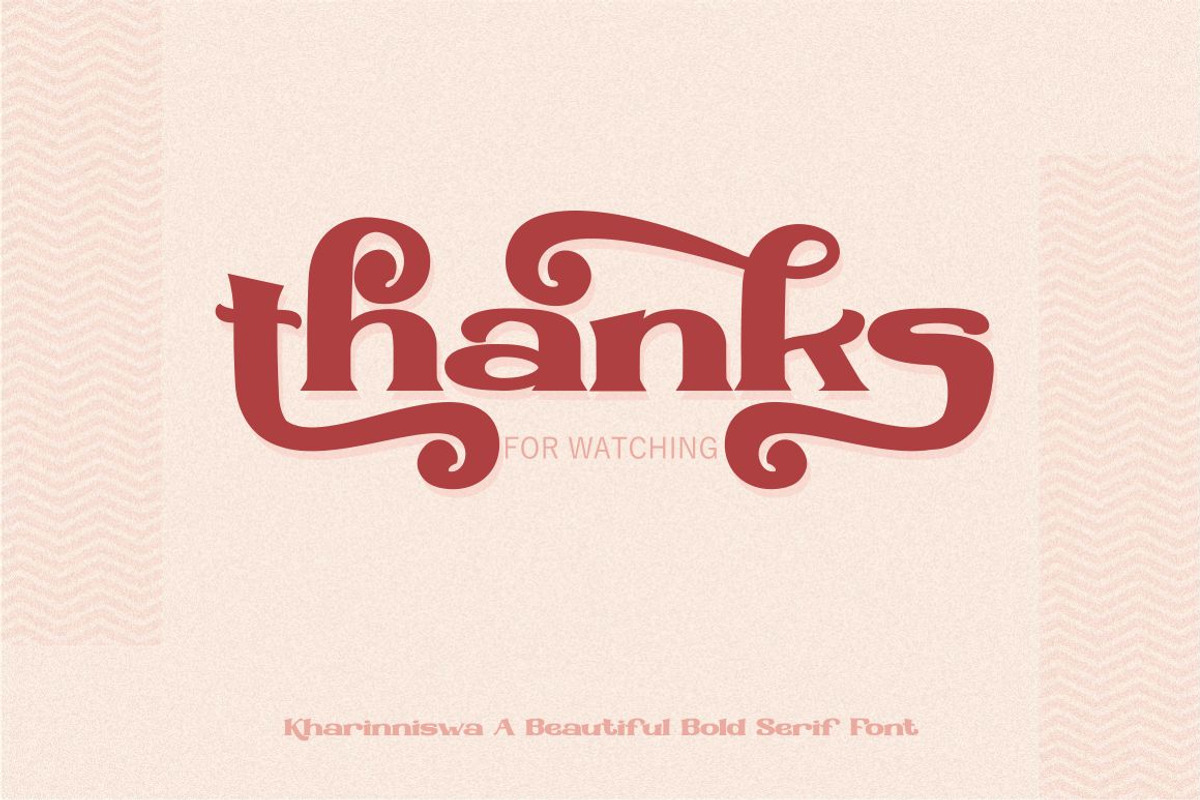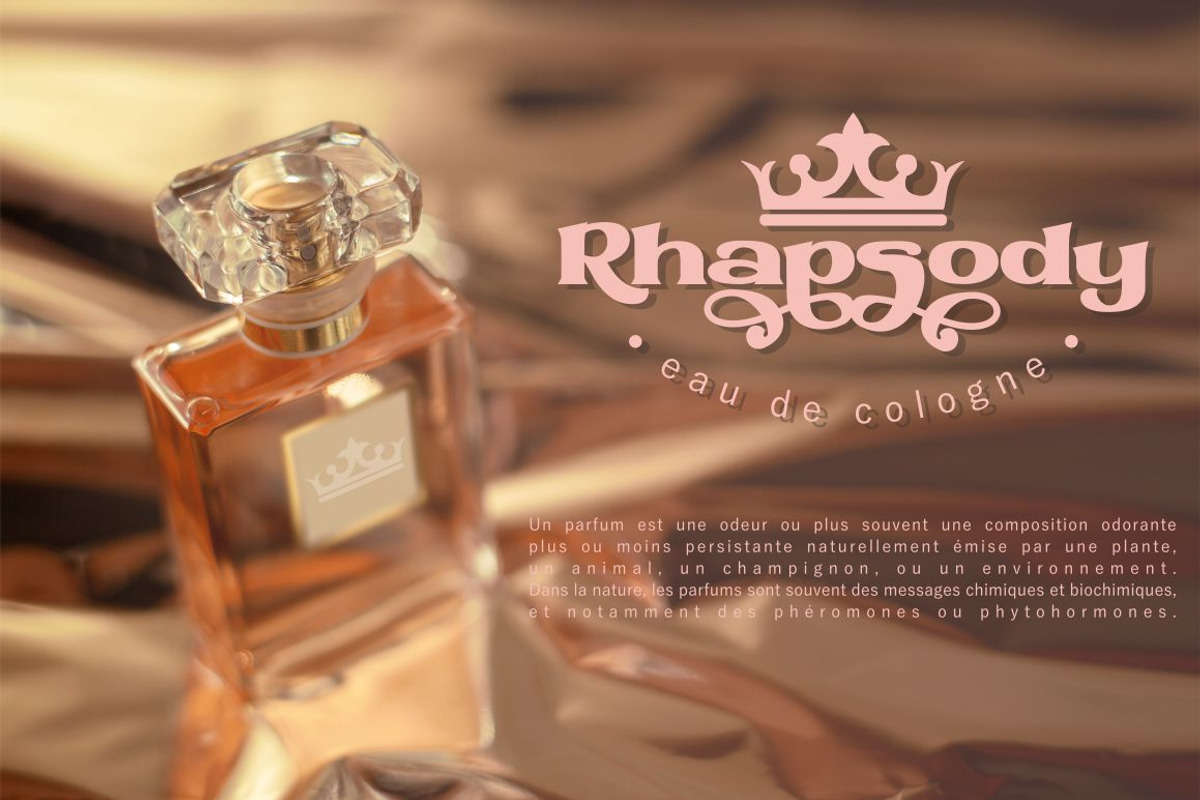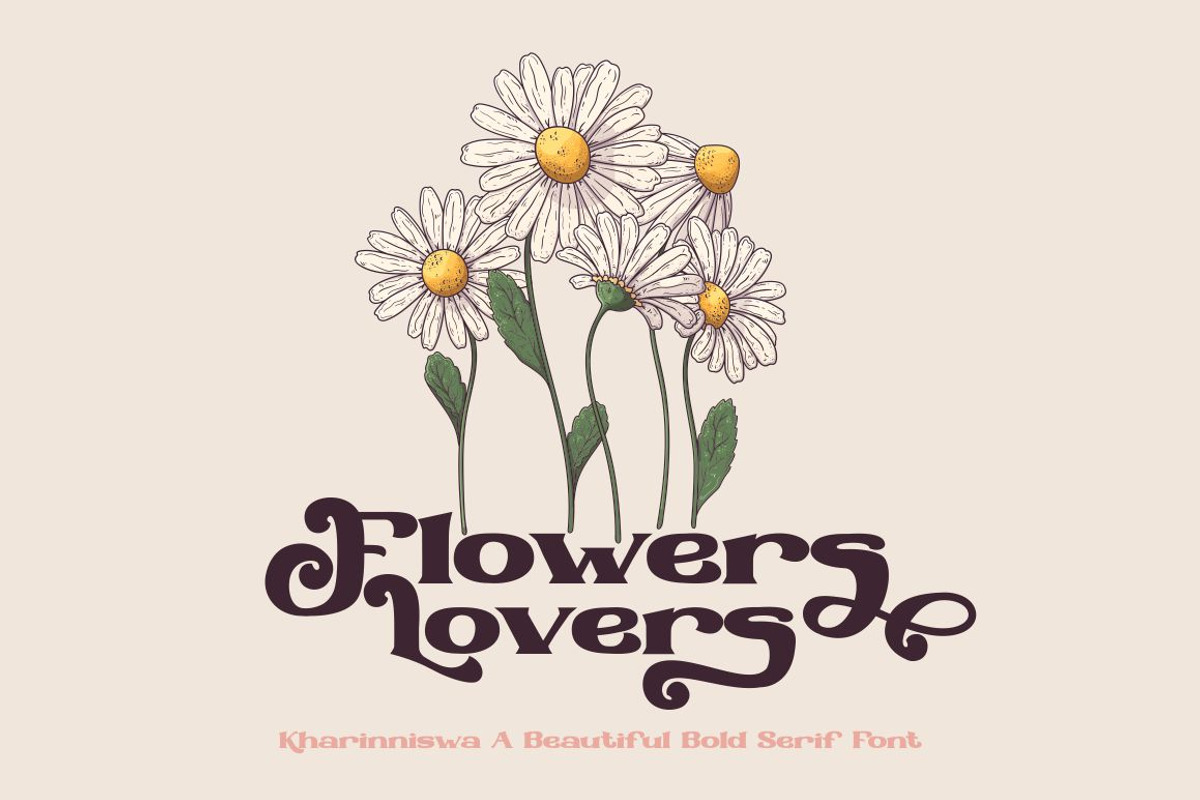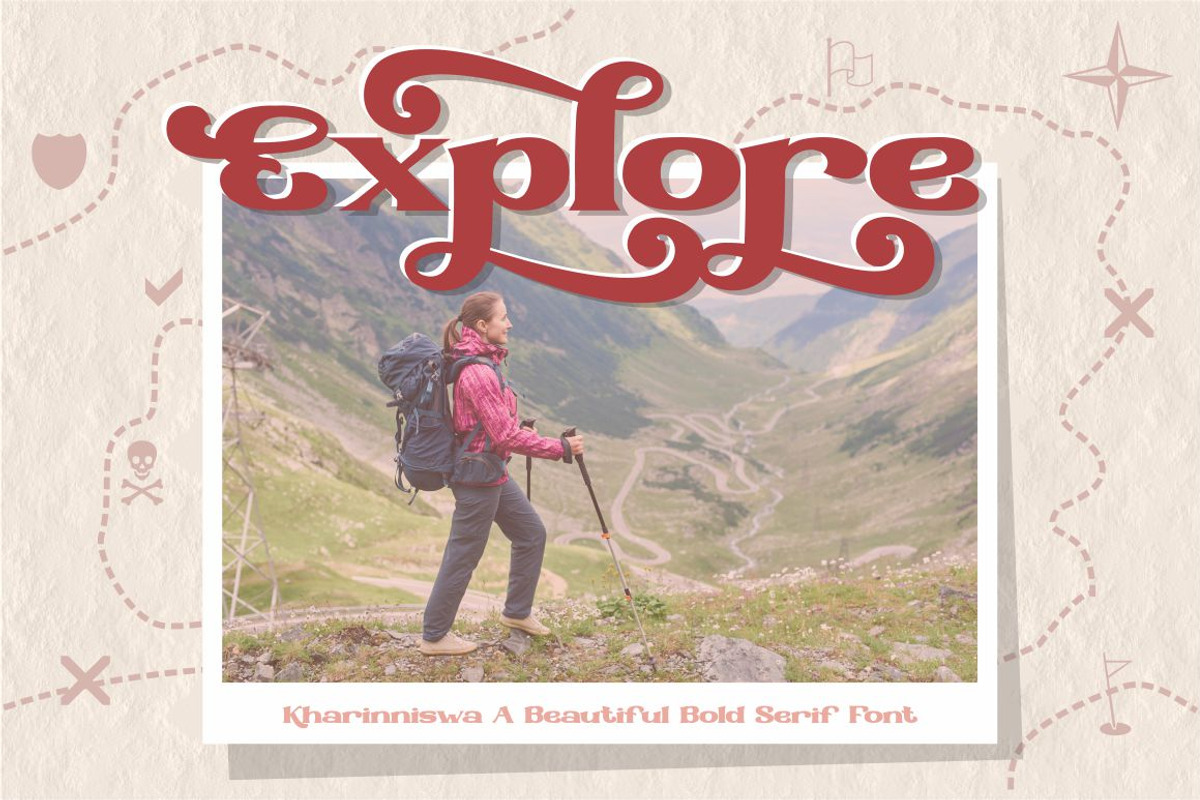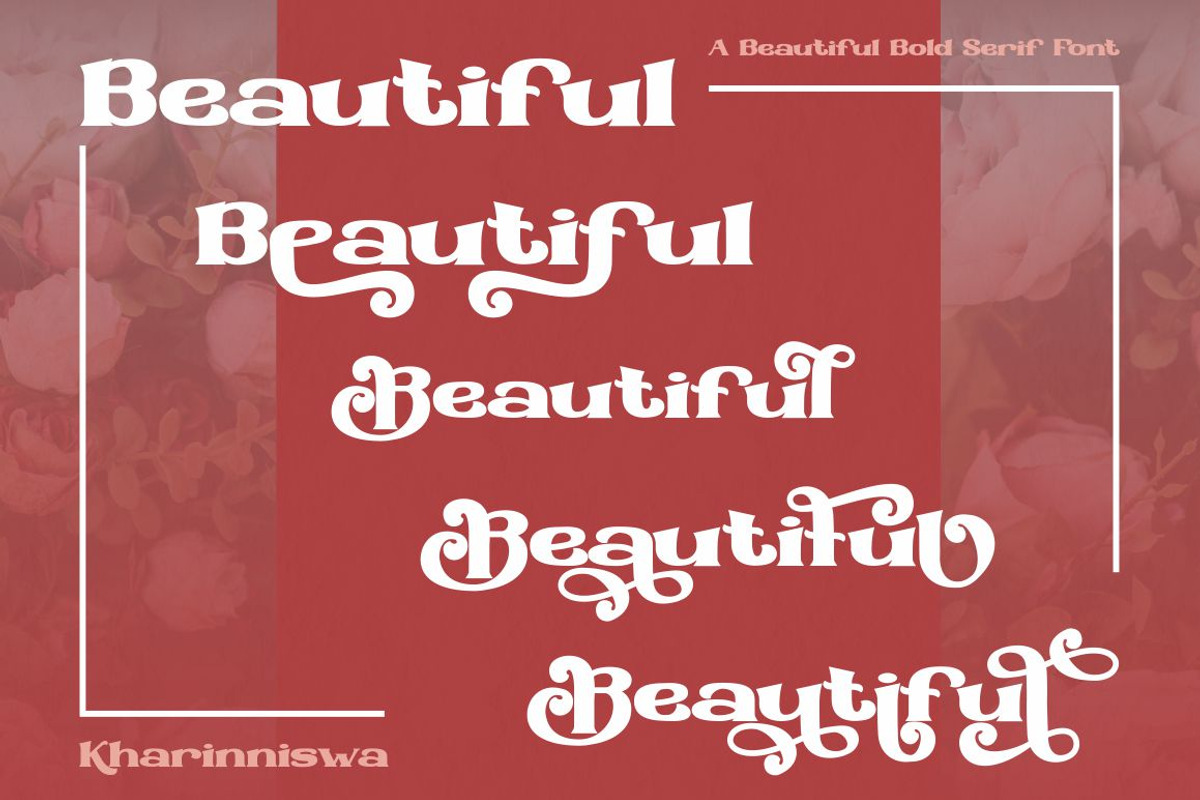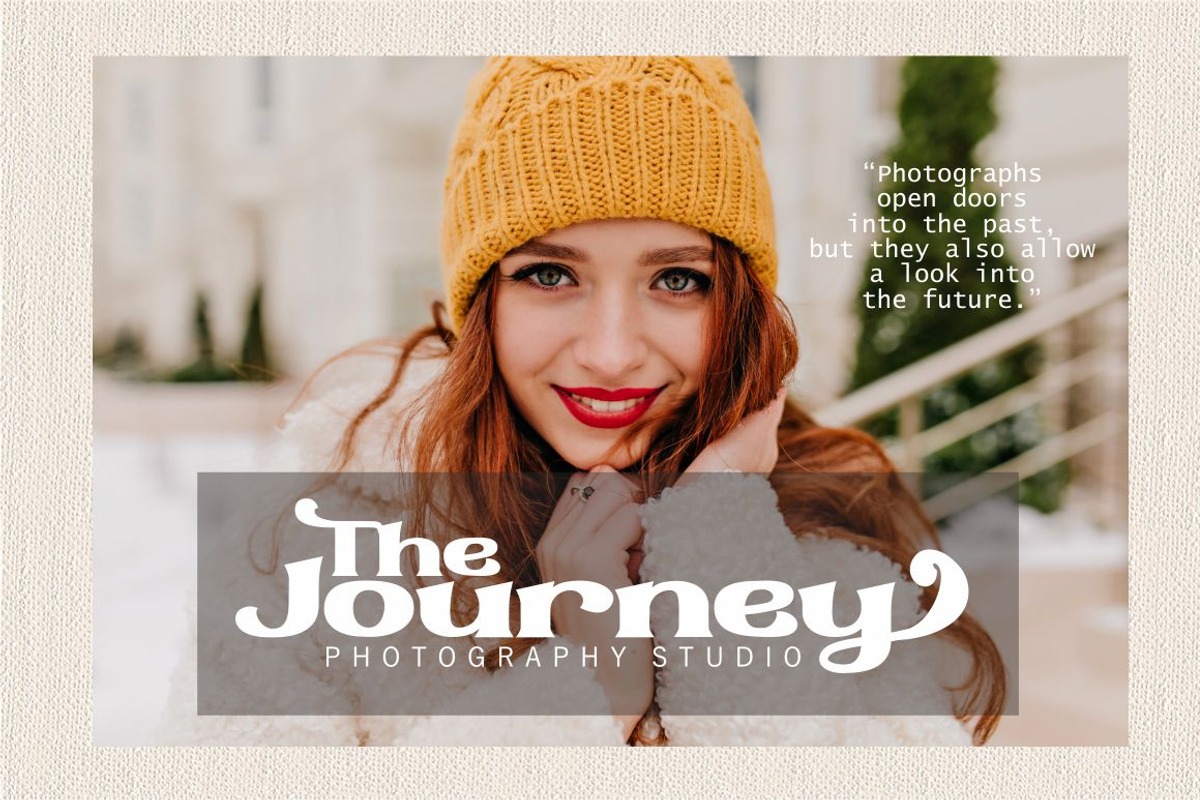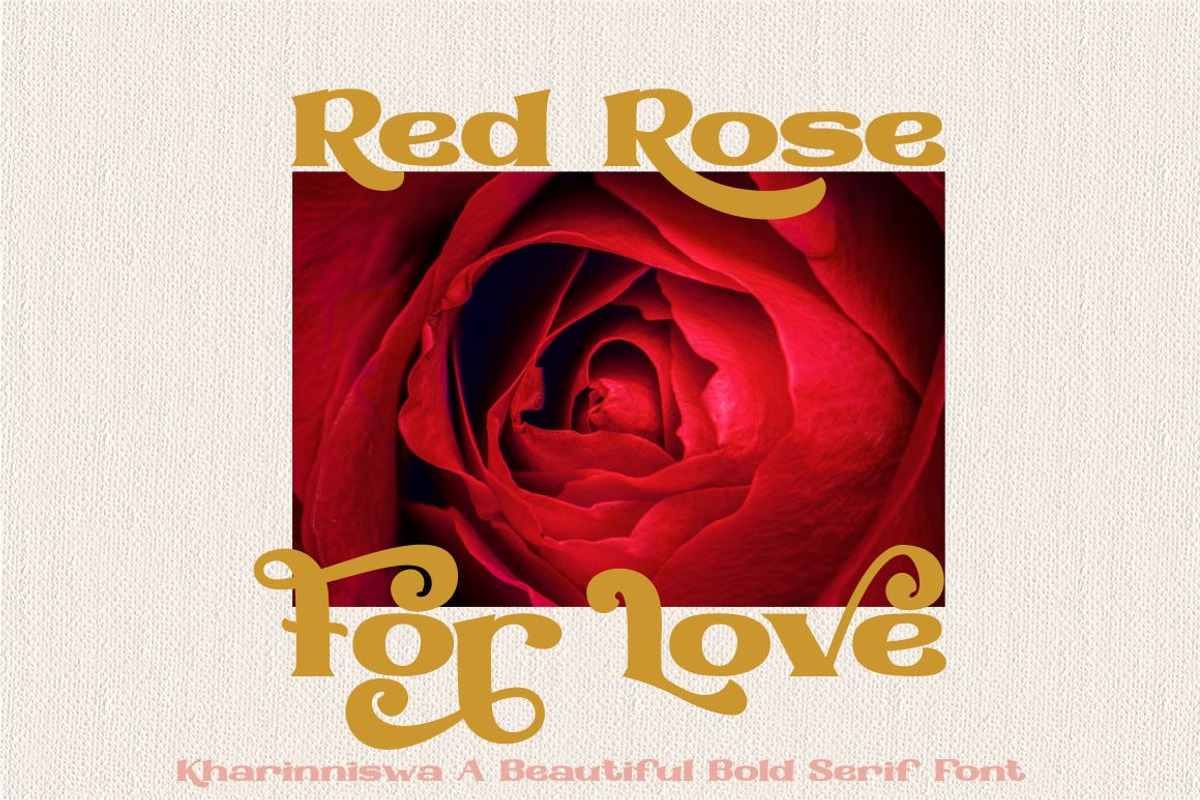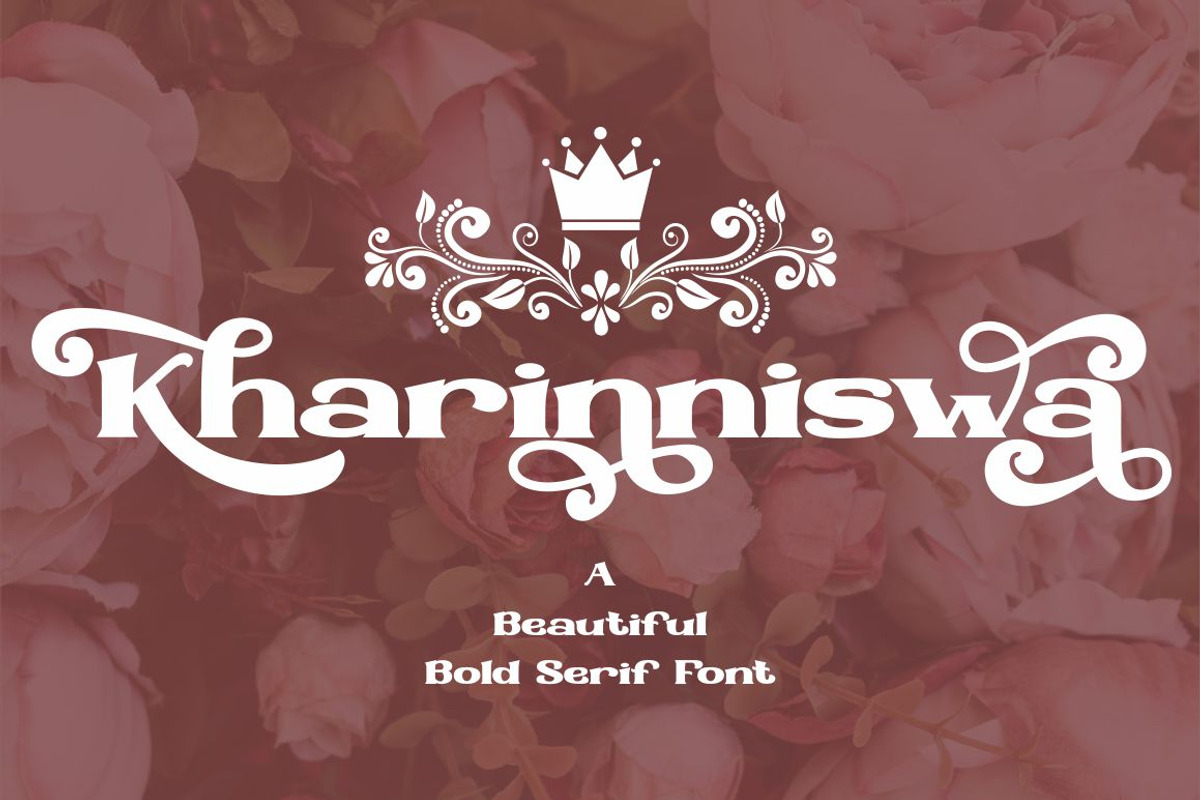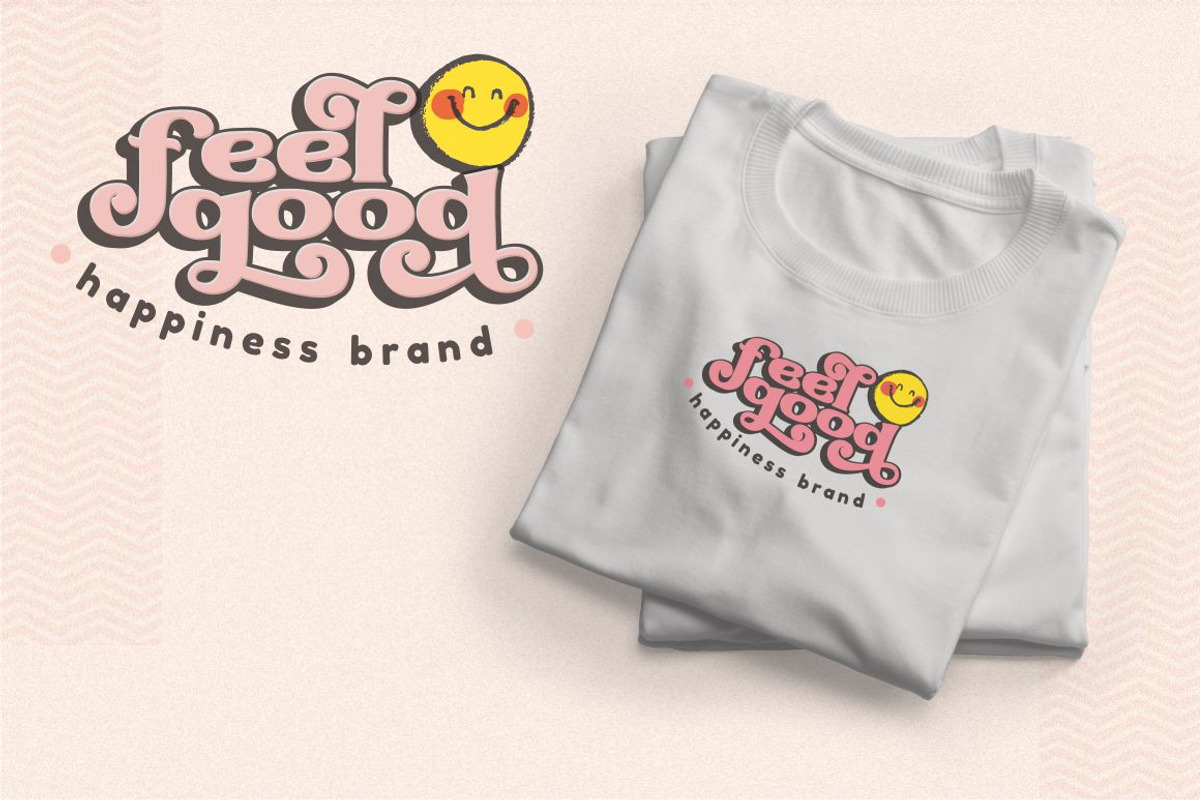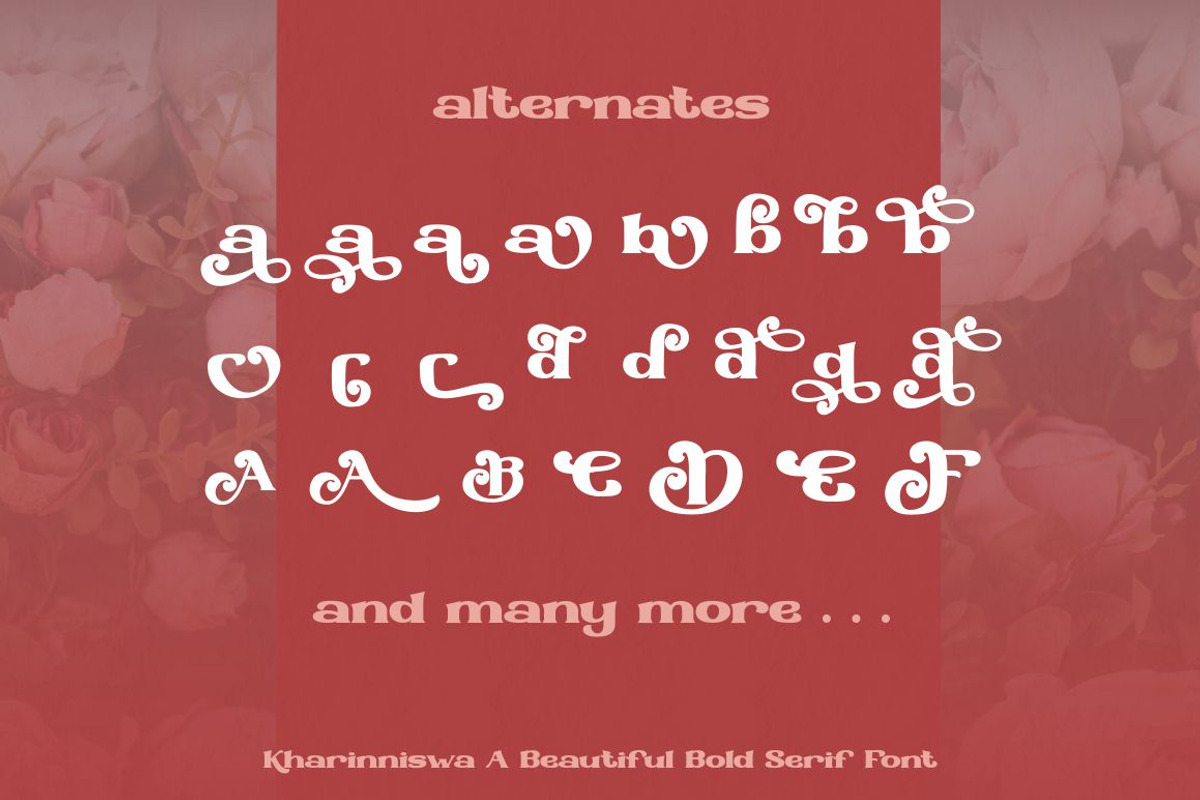
Kharinniswa - A Beautiful Bold Serif
Introducing Kharinniswa - A Beautiful Bold Serif Font
Kharinniswa is a bold serif font with tons of beautiful alternative glyphs and multilingual support. This font is bold, clean, traditional, unique, fun and simple. Come with open type feature with a lot of alternates, its help you to make great lettering. Kharinniswa best uses for heading headlines, cover, poster, logos, quotes, product packaging, merchandise, social media & greeting cards and many more.
Comes with feature :
- Number, Punctuation And Symbols
- Multilanguage Support.